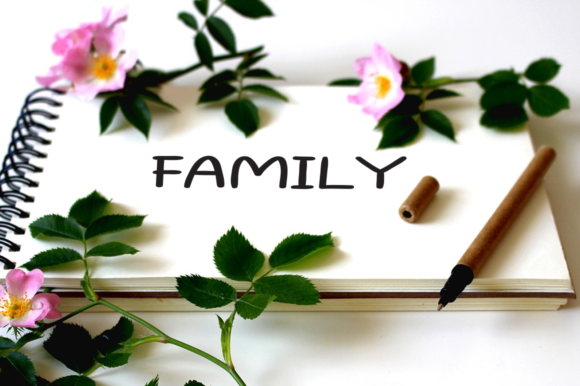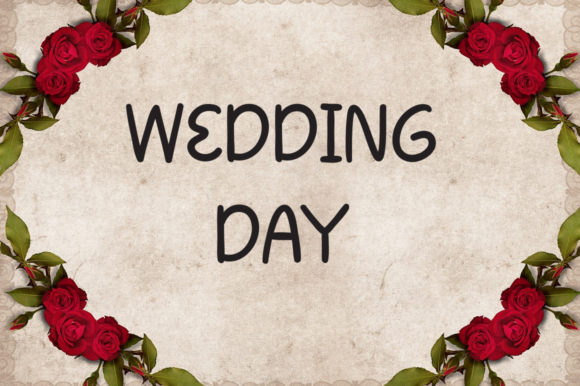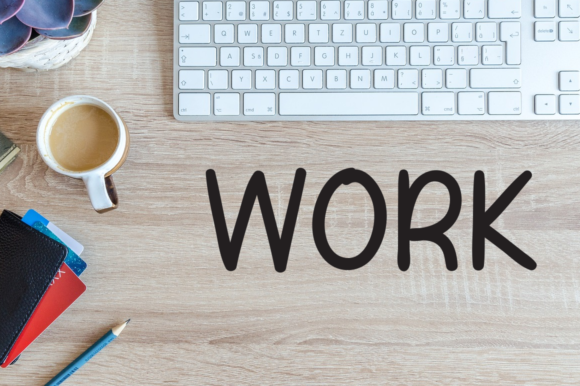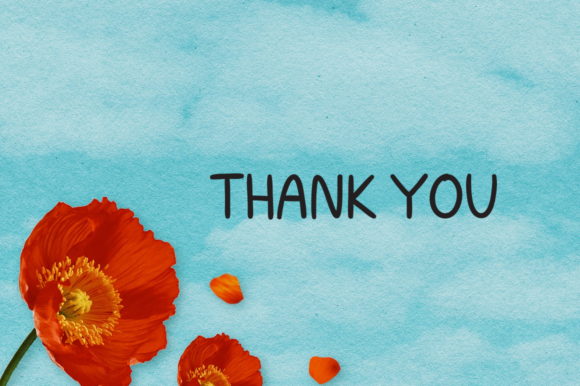
Discover the Charm of the Homeland Life Font
Have you ever been inspired by the simple yet elegant handwriting of a loved one? Maybe it was a note from a child or a sweet message from a partner. Whatever it was, that moment sparked something within you – a desire to capture the essence of those handwritten moments and infuse them into your creative projects. For designers, finding the perfect font can be a game-changer, and that’s where the Homeland Life Font comes in.
This beautiful handwritten font is designed to be adaptable and versatile, making it an excellent choice for a wide range of designs. From wedding invitations to blog posts, the Homeland Life Font adds a touch of warmth and personality that’s hard to resist. Its natural style and endless variations make it a valuable asset for designers looking to add a unique touch to their work.
Key Features of Homeland Life Font
- Font Family: Homeland Life Font is a unique, modern sans-serif font family designed specifically for use in the insurance industry.
- Character Set: Supports a wide range of languages, including Latin, Cyrillic, and Greek alphabets, making it a versatile font for global use.
- Unique Characteristics: Features a clean, approachable design aesthetic with subtle nuances that evoke a sense of trust and stability, making it ideal for insurance and financial institutions.
Designer Review: Homeland Life Font
Overall, I’d say the Homeland Life Font has some great qualities, but it falls short in a few areas. Let’s dive in!
- Clean and Simple Design: The font’s clean lines and minimal ornamentation make it a great choice for any project where you want a straightforward, easy-to-read font.
- High Legibility: The font is well-designed for reading, with clear distinctions between letters and words.
- Good Versatility: While it’s not the most exciting font, it’s a great all-around choice for various projects, from business reports to blog posts.
- Lack of Personality: The font is a bit too generic and doesn’t have a distinct personality that sets it apart from other fonts.
- Not Suitable for Creative Projects: If you’re working on a creative project like a novel or a design magazine, this font might not be the best choice.
- Not Ideal for Small Text: The font’s readability suffers at smaller text sizes, making it less suitable for projects where text will be displayed in small sizes.
Overall, the Homeland Life Font is a solid, dependable choice for everyday projects. It’s not the most exciting font, but it gets the job done. If you’re looking for a clean, easy-to-read font, this might be a good option. However, if you’re looking for something more unique or creative, you might want to consider other options.
The Homeland Life Font is suitable for various design projects, including:
- Watercolor illustrations of farm-fresh produce
- Distressed textures to evoke a vintage feel
- Warm, muted color palette to evoke a sense of home
- Rustic wood textures to evoke a sense of natural charm
- Floral illustrations in muted colors to add a touch of whimsy
- Earth-toned color palette to evoke a sense of the great outdoors